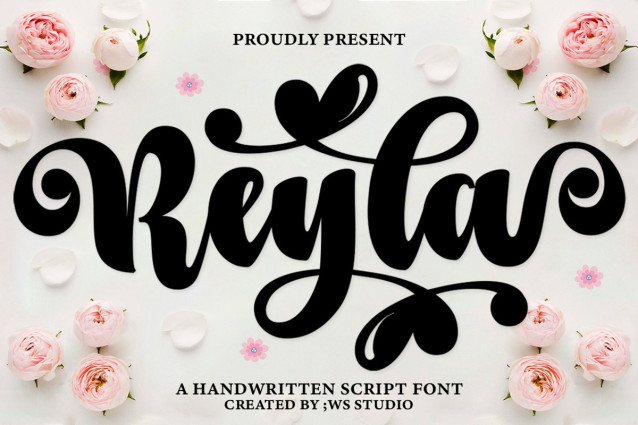
Reyla Font
Reyla Font is a really cool typeface, bold yet smooth, perfect for all your work where you want to use script fontsequipped with upper and lower case letters, numbers, punctuation, swahes, alternatives, binders and language support ,To enable the OpenType Stylistic alternative, you need a program that supports OpenType features such as Adobe Illustrator CS, Adobe Indesign & CorelDraw X6-X7, Microsoft Word 2010 or a later version.